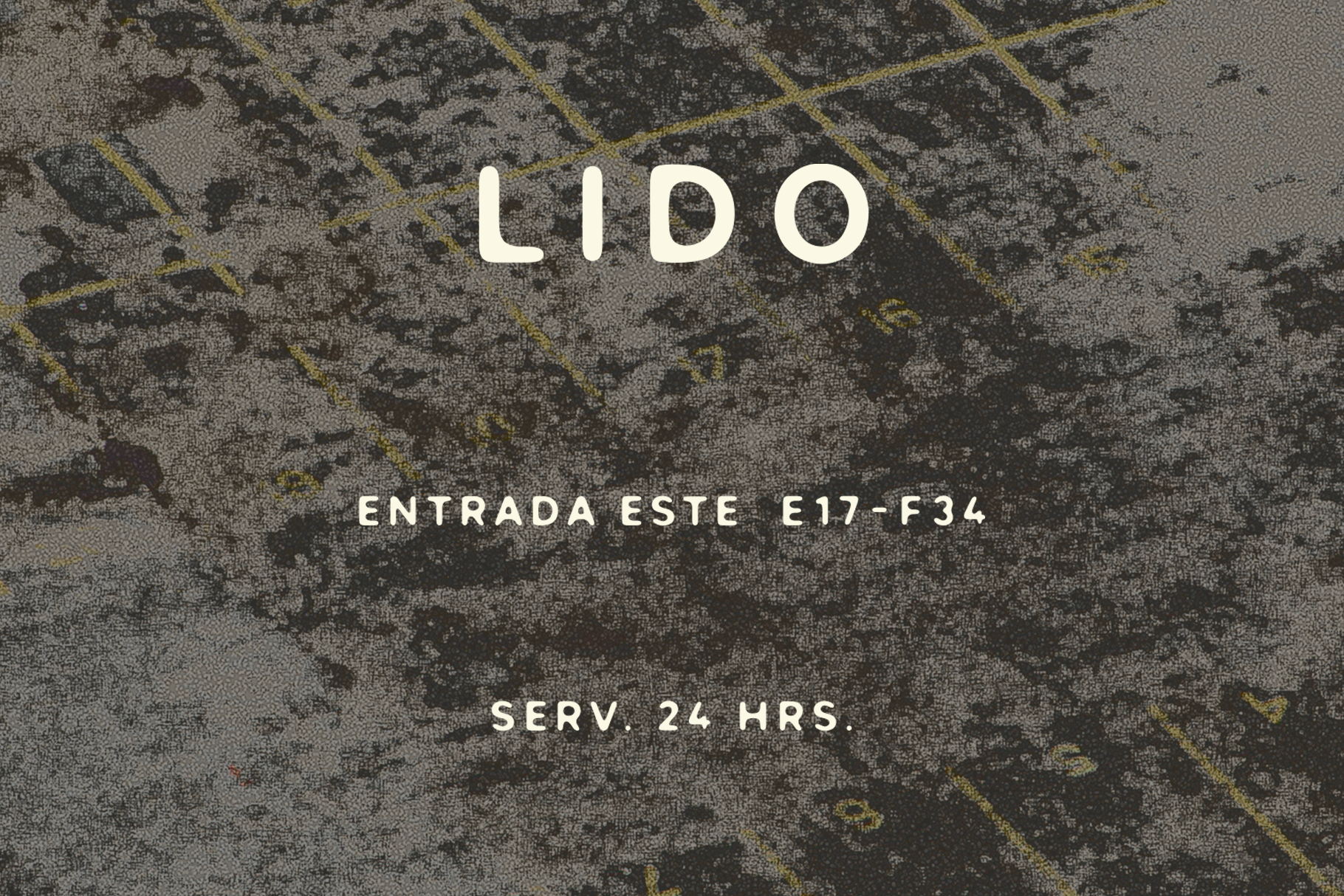
LIDO Font
Lido takes its inspiration from the utilitarian lettering commonly found in Mexican parking lots. These simple signs are often hand painted directly onto walls or quickly written on cardboard boards, displaying essential information such as opening hours, entrance directions or parking fees.
This everyday visual language became the starting point for the typeface. The original letterforms were carefully redrawn and refined into a clean display font that keeps the informal charm of the source while making it practical for contemporary design work.
Lido is a fully functional all caps font including numbers and punctuation. The typeface is well suited for branding, posters, packaging, editorial layouts, logos and signage, adding a distinctive vintage and vernacular character to modern design projects.